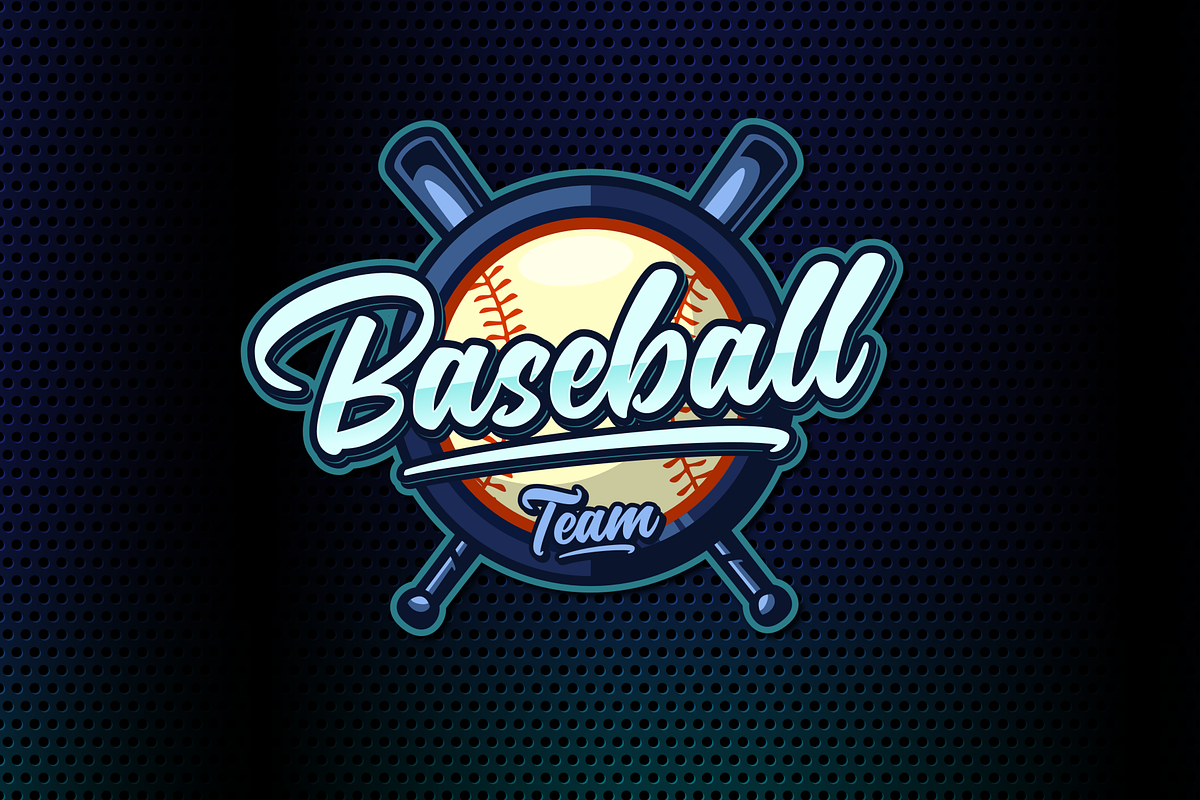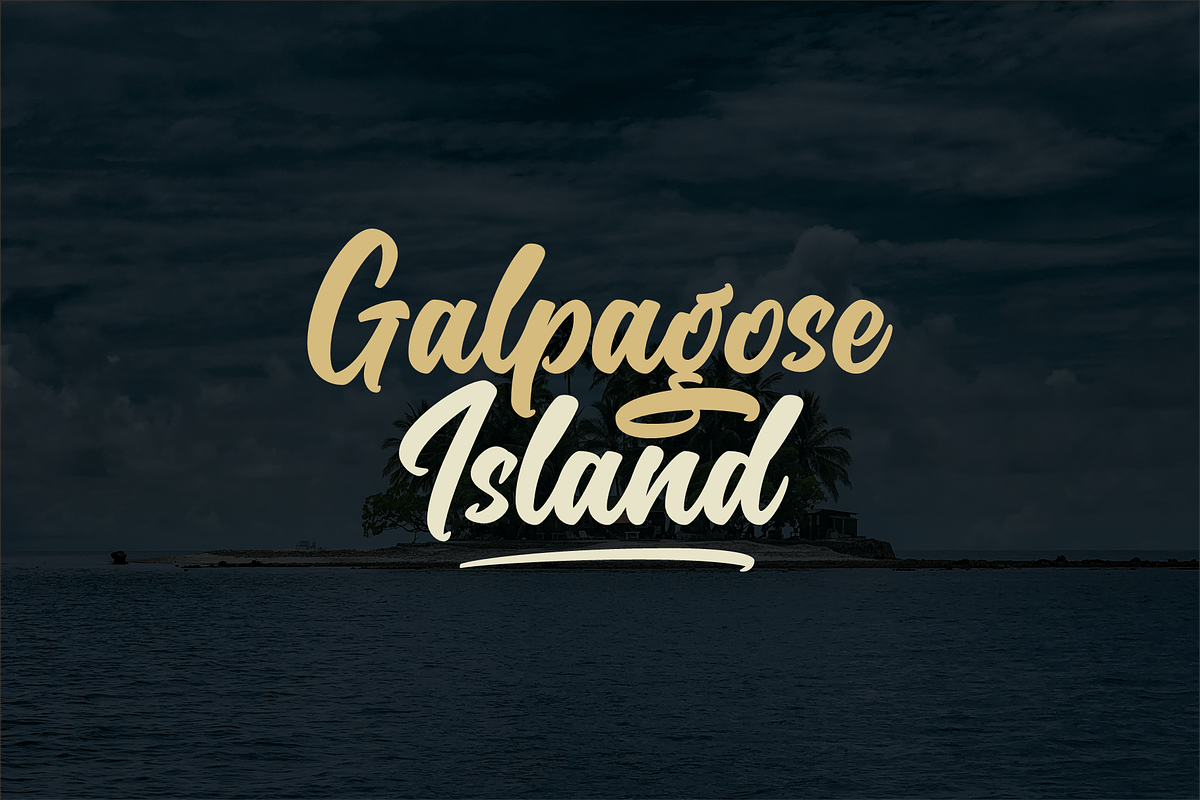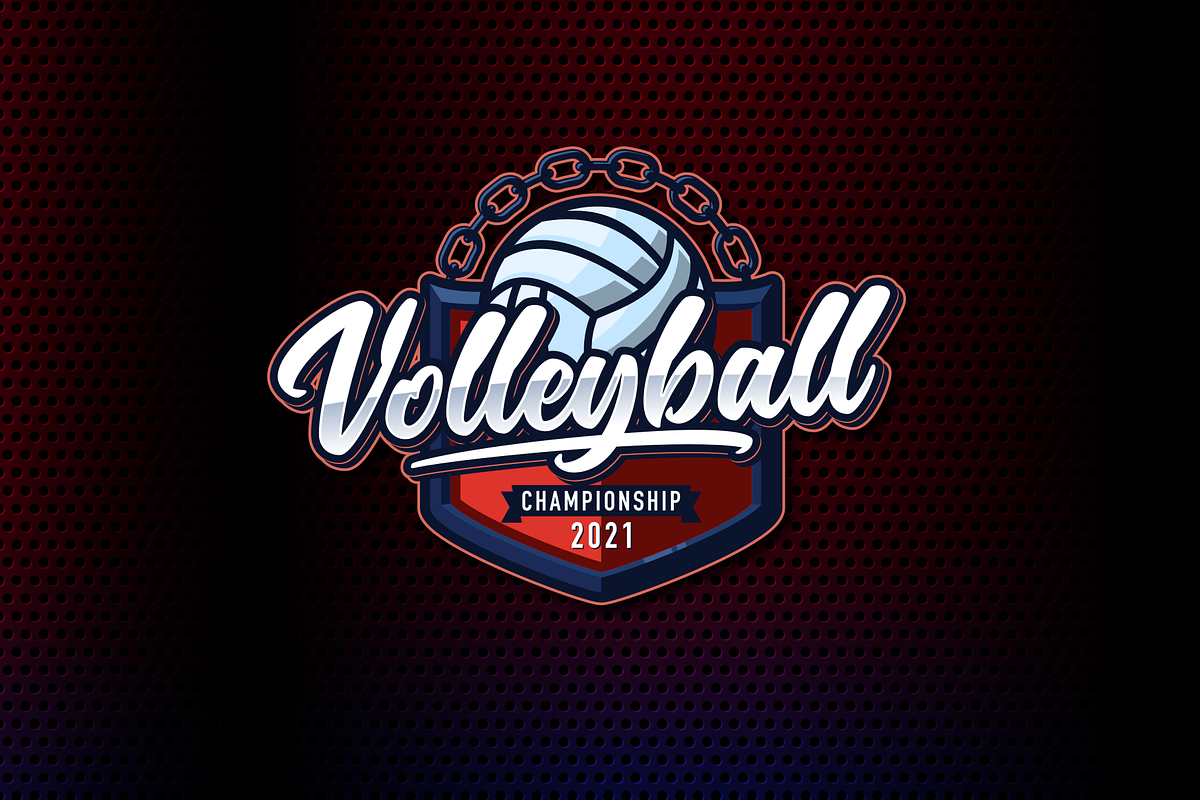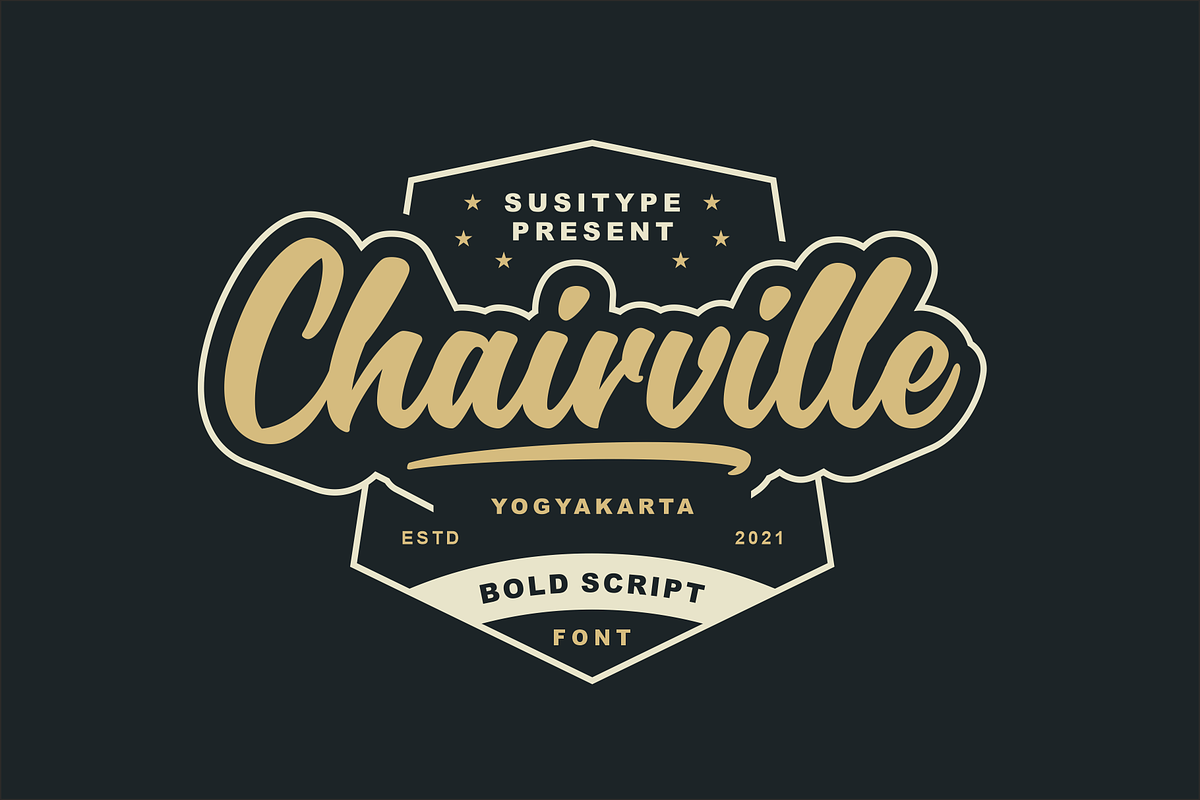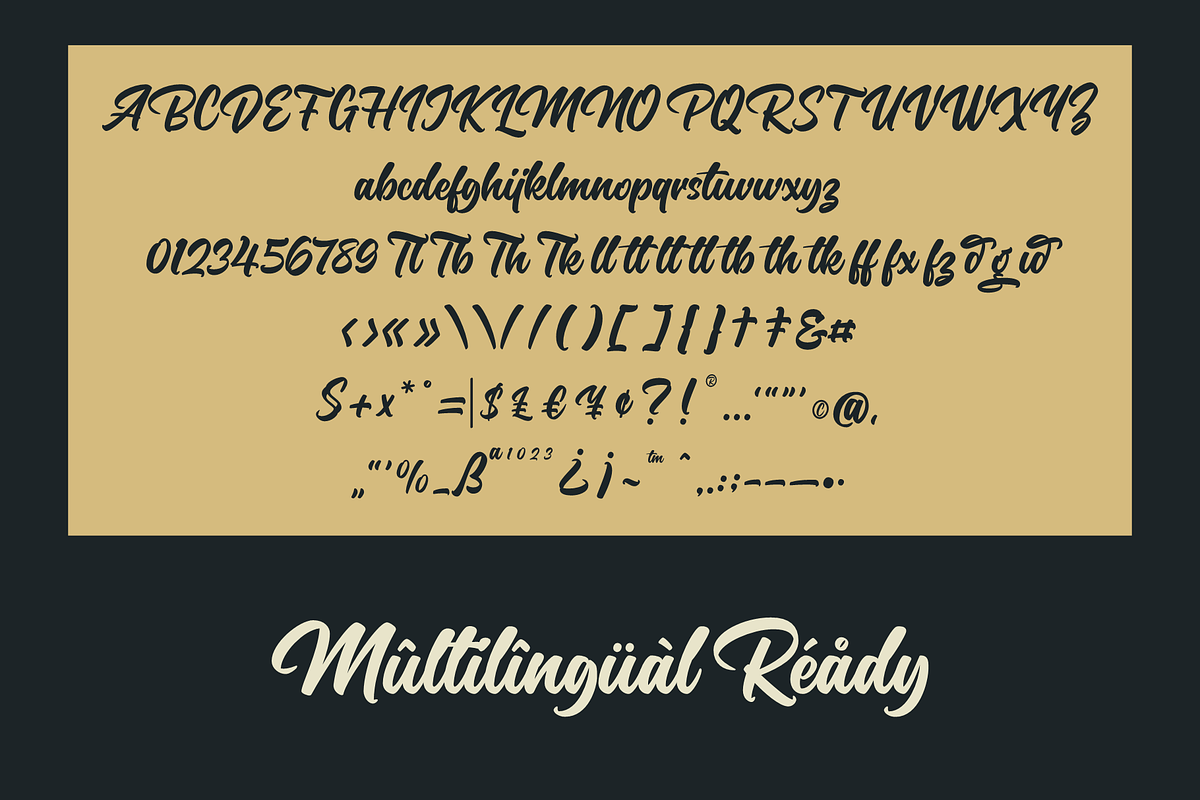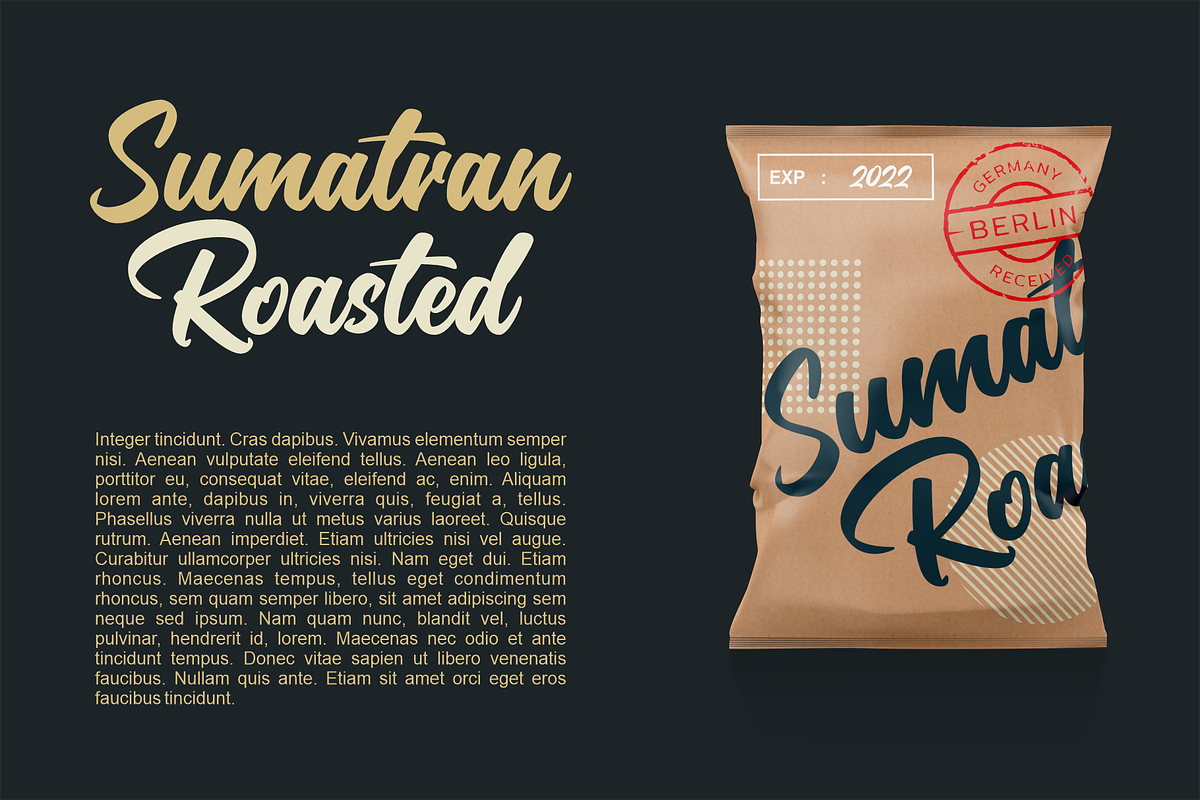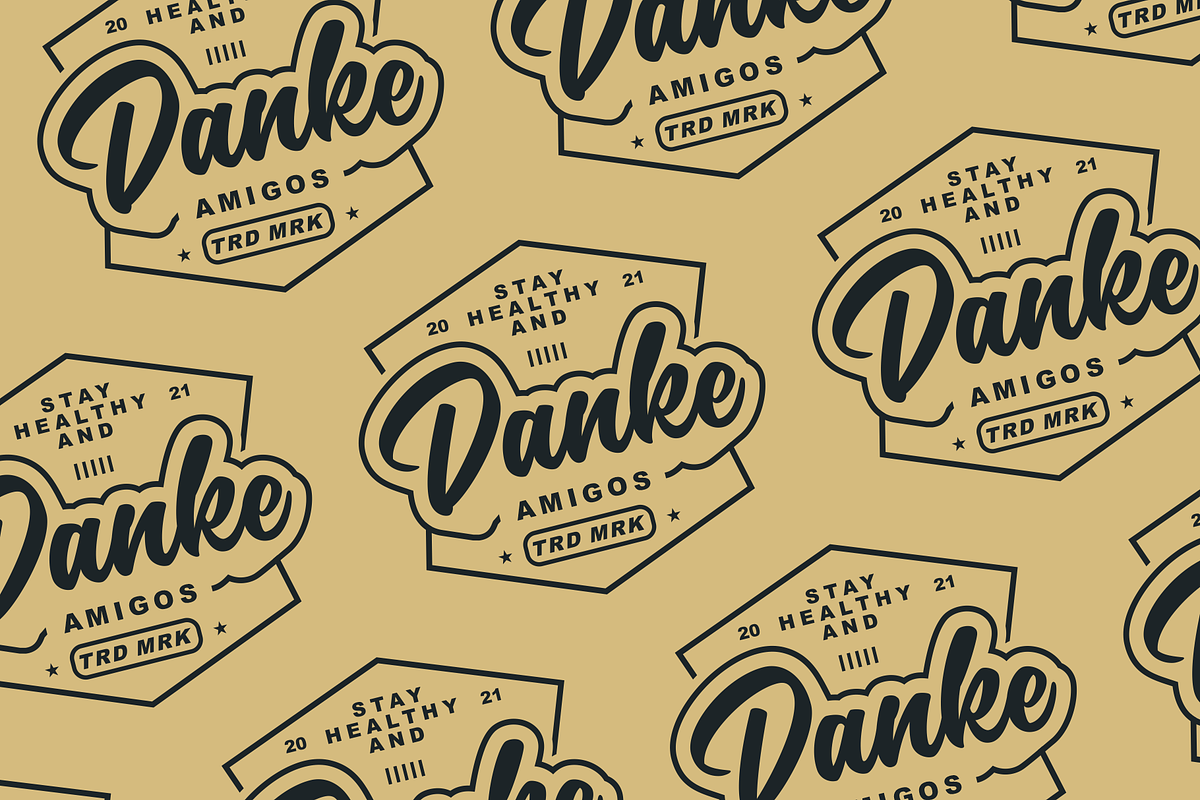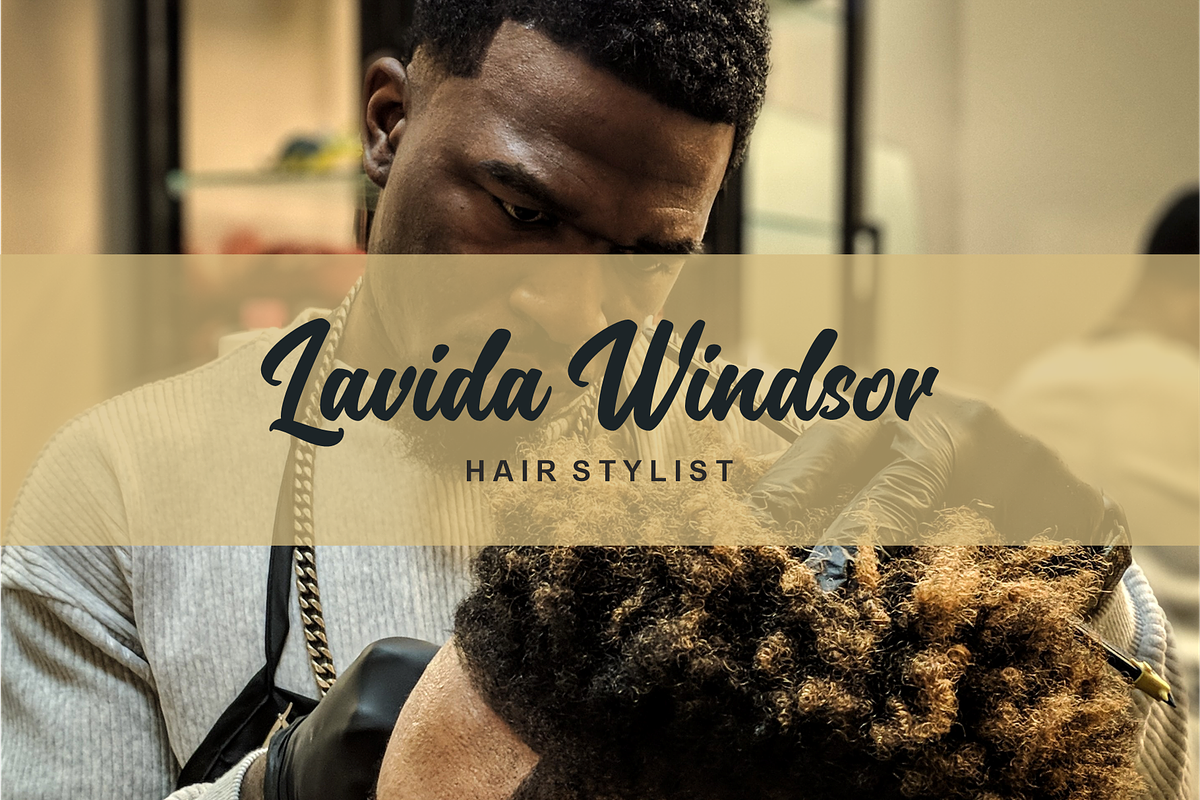
Chairville
Introducing Chairville, a bold script font. This font will very suitable for your many projects like logo, headline, brand, badge, emblem and whatnot. Grab it now !
- Ligatures ✔
- Alternates ✔
MULTILINGUAL ACCENT